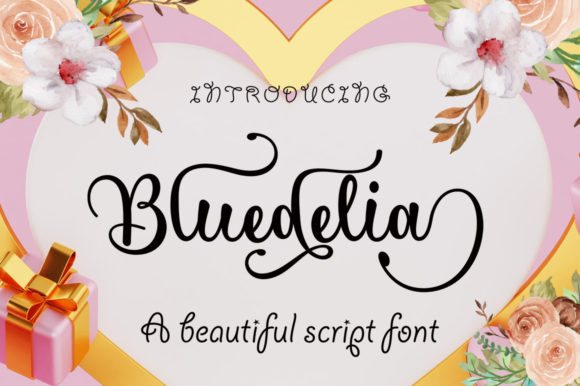
Introducing Bluedelia Script Font: The Ultimate Luxury Addition to Your Design Projects
Are you looking for a font that can add a touch of romance and sophistication to your design projects? Look no further than Bluedelia Script Font. This beautiful calligraphy typeface is designed to make your designs stand out with its unique and elegant style. In this article, we’ll take a closer look at Bluedelia Script Font and explore its features, benefits, and uses.
What is Bluedelia Script Font?
Bluedelia Script Font is a romantic and sweet calligraphy typeface that features characters that dance along the baseline. This font is perfect for designers who want to add a touch of luxury and elegance to their designs. Whether you’re working on a branding project, a wedding invitation, or a packaging design, Bluedelia Script Font is sure to impress.
One of the standout features of Bluedelia Script Font is its unique and flowing style. The characters are designed to flow smoothly into each other, creating a beautiful and harmonious look that’s perfect for designs that require a touch of sophistication.
Key Features of Bluedelia Script Font
So, what makes Bluedelia Script Font so special? Here are some of its key features:
- Romantic and Sweet Style: Bluedelia Script Font features a romantic and sweet style that’s perfect for designs that require a touch of elegance and sophistication.
- PUA Encoded: This font is PUA encoded, which means you can access all of the amazing glyphs and ligatures with ease.
- Ligatures and Glyphs: Bluedelia Script Font features a range of ligatures and glyphs that allow you to create beautiful and unique designs.
- Luxury Spark: This font is designed to add a luxury spark to any design project, making it perfect for high-end branding and design projects.
Benefits of Using Bluedelia Script Font
So, why should you use Bluedelia Script Font in your design projects? Here are some of the benefits of using this beautiful font:
- Elegant and Sophisticated: Bluedelia Script Font adds an elegant and sophisticated touch to any design project, making it perfect for high-end branding and design projects.
- Unique and Creative: This font features a unique and creative style that’s sure to make your designs stand out from the crowd.
- Easy to Use: Bluedelia Script Font is PUA encoded, making it easy to access all of the amazing glyphs and ligatures.
- Versatile: This font is versatile and can be used in a range of design projects, from branding and packaging to wedding invitations and more.
Uses of Bluedelia Script Font
So, what can you use Bluedelia Script Font for? Here are some ideas:
- Branding and Logo Design: Use Bluedelia Script Font to create elegant and sophisticated branding and logo designs.
- Wedding Invitations: This font is perfect for wedding invitations, adding a touch of romance and elegance to your designs.
- Packaging Design: Use Bluedelia Script Font to create beautiful and unique packaging designs that stand out from the crowd.
- Advertising and Marketing: This font can be used in advertising and marketing materials, such as brochures, flyers, and more.
Tips for Using Bluedelia Script Font
Here are some tips for using Bluedelia Script Font in your design projects:
- Use it Sparingly: Use Bluedelia Script Font sparingly to add a touch of elegance and sophistication to your designs.
- Pair it with Other Fonts: Pair Bluedelia Script Font with other fonts to create a unique and creative look.
- Experiment with Colors: Experiment with different colors to find the perfect combination for your design.
- Pay Attention to Kerning: Pay attention to kerning to ensure that your text looks elegant and sophisticated.
In conclusion, Bluedelia Script Font is a beautiful and elegant calligraphy typeface that’s perfect for designers who want to add a touch of luxury and sophistication to their designs. With its unique and flowing style, PUA encoding, and range of ligatures and glyphs, this font is sure to impress. Whether you’re working on a branding project, a wedding invitation, or a packaging design, Bluedelia Script Font is a great choice.